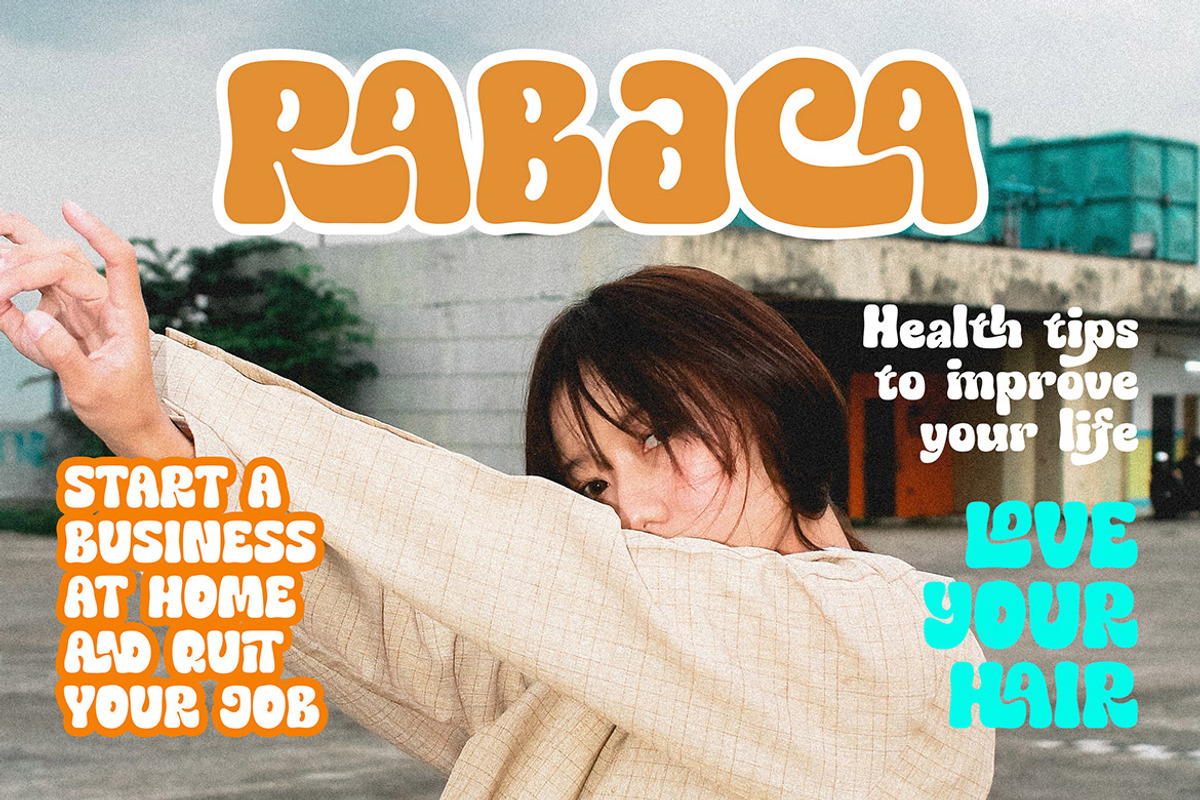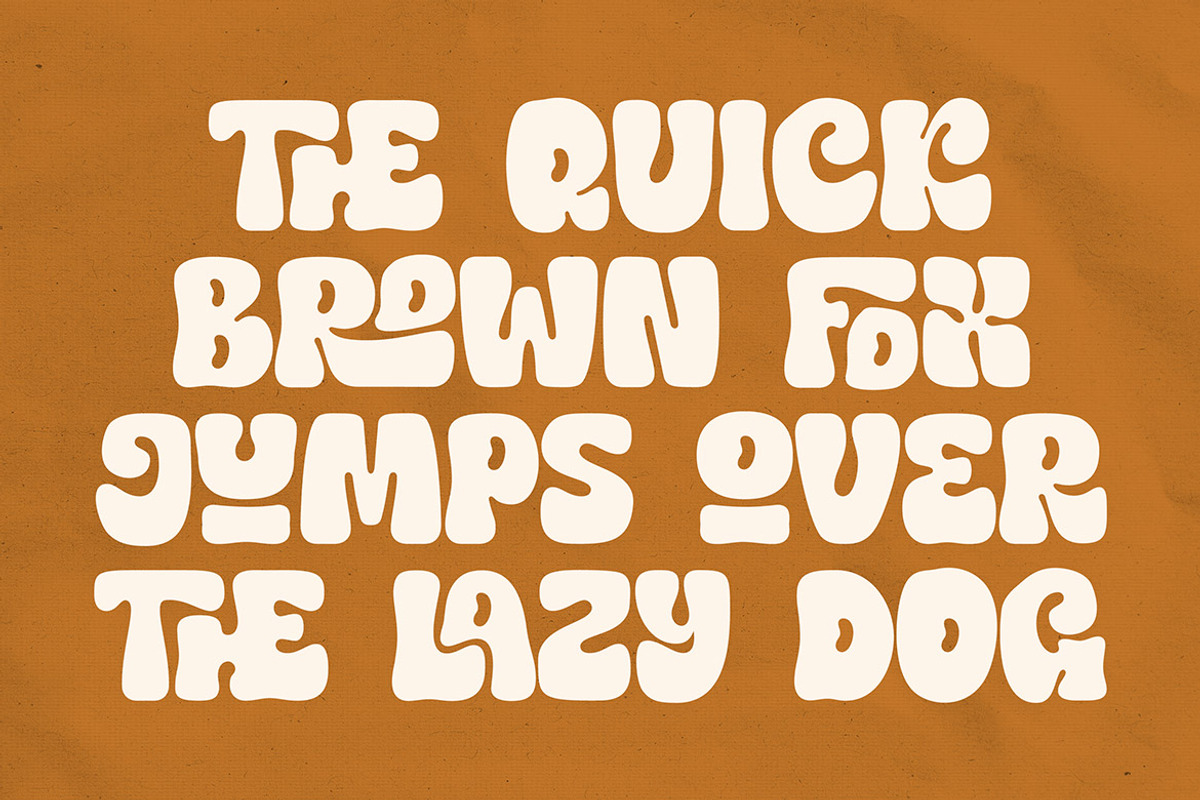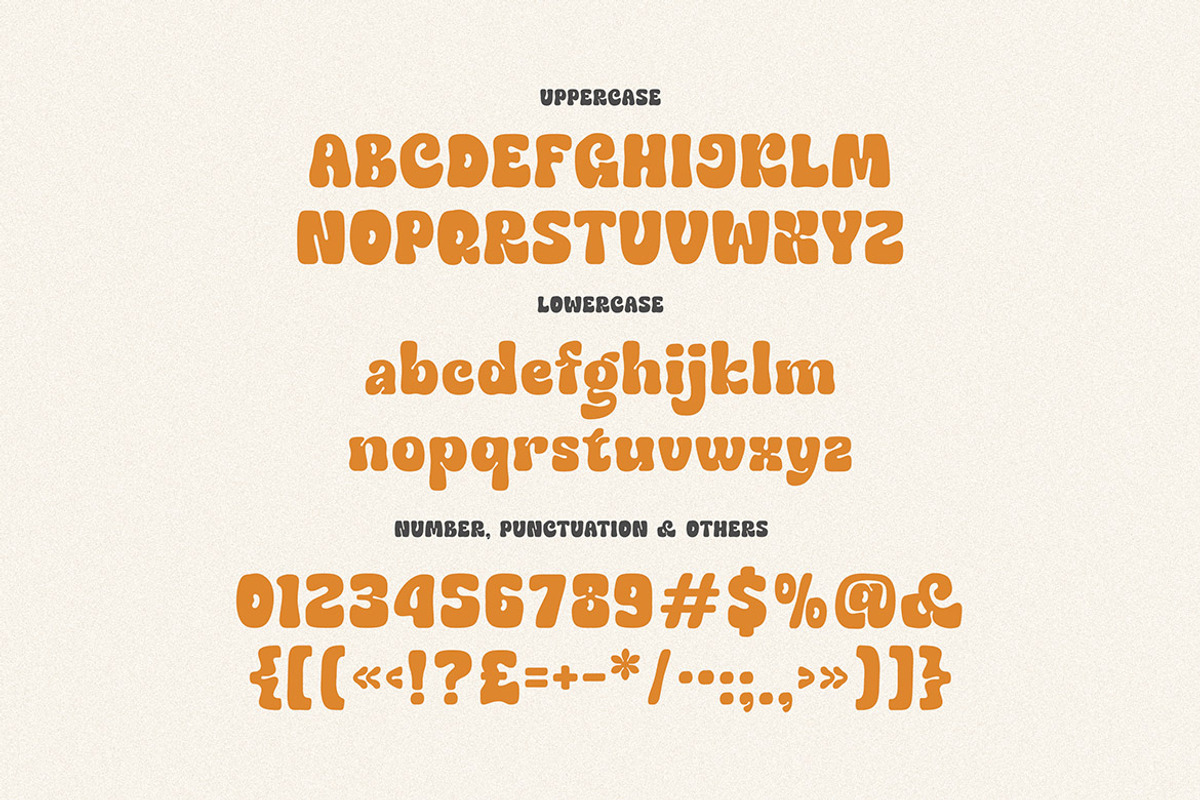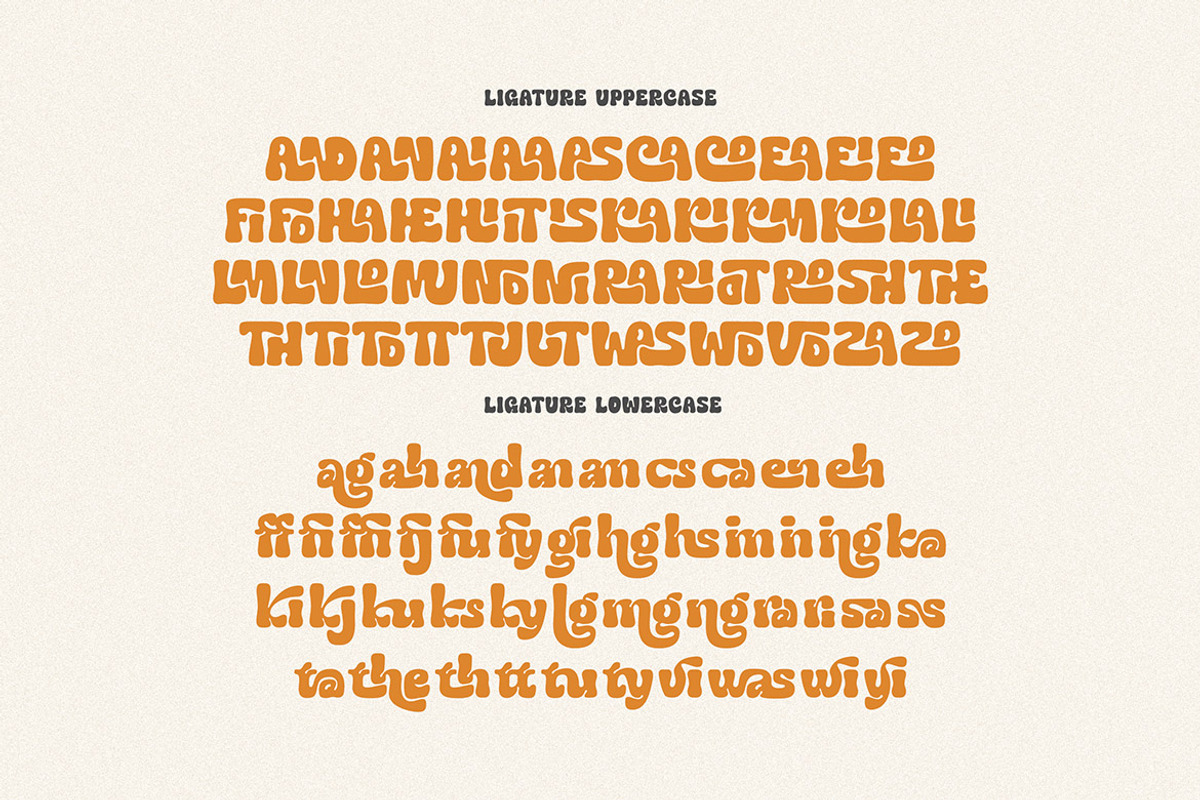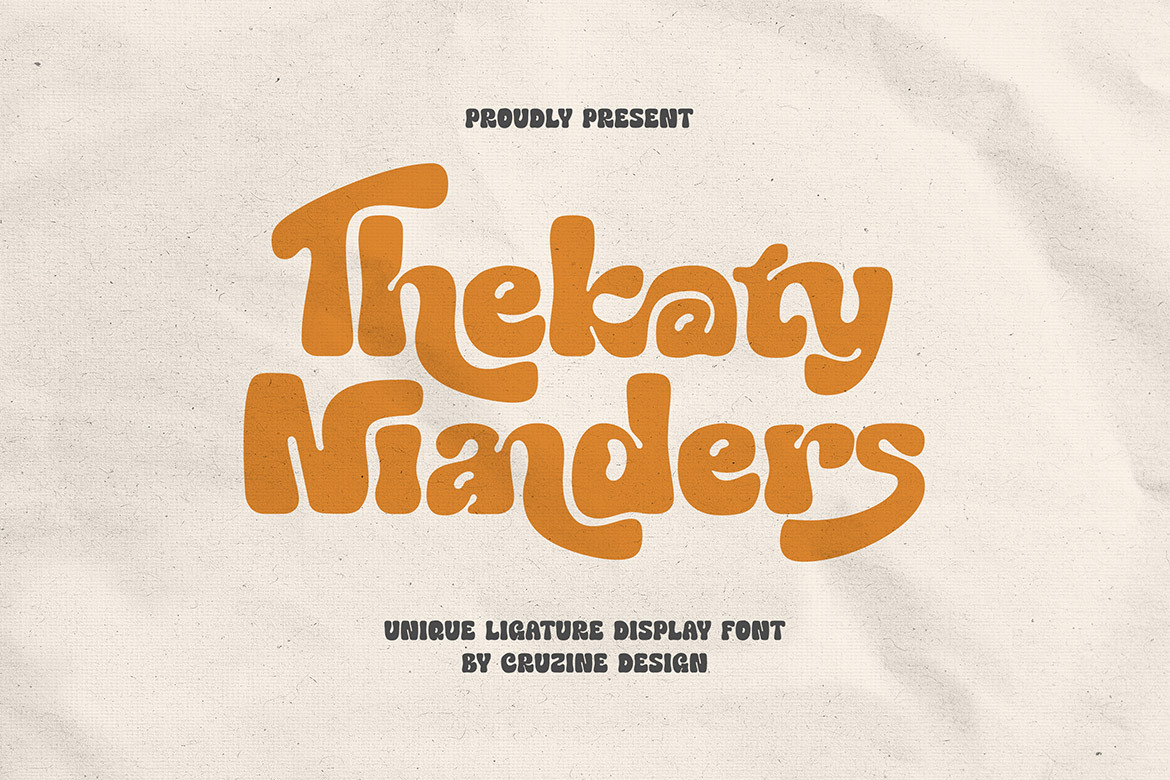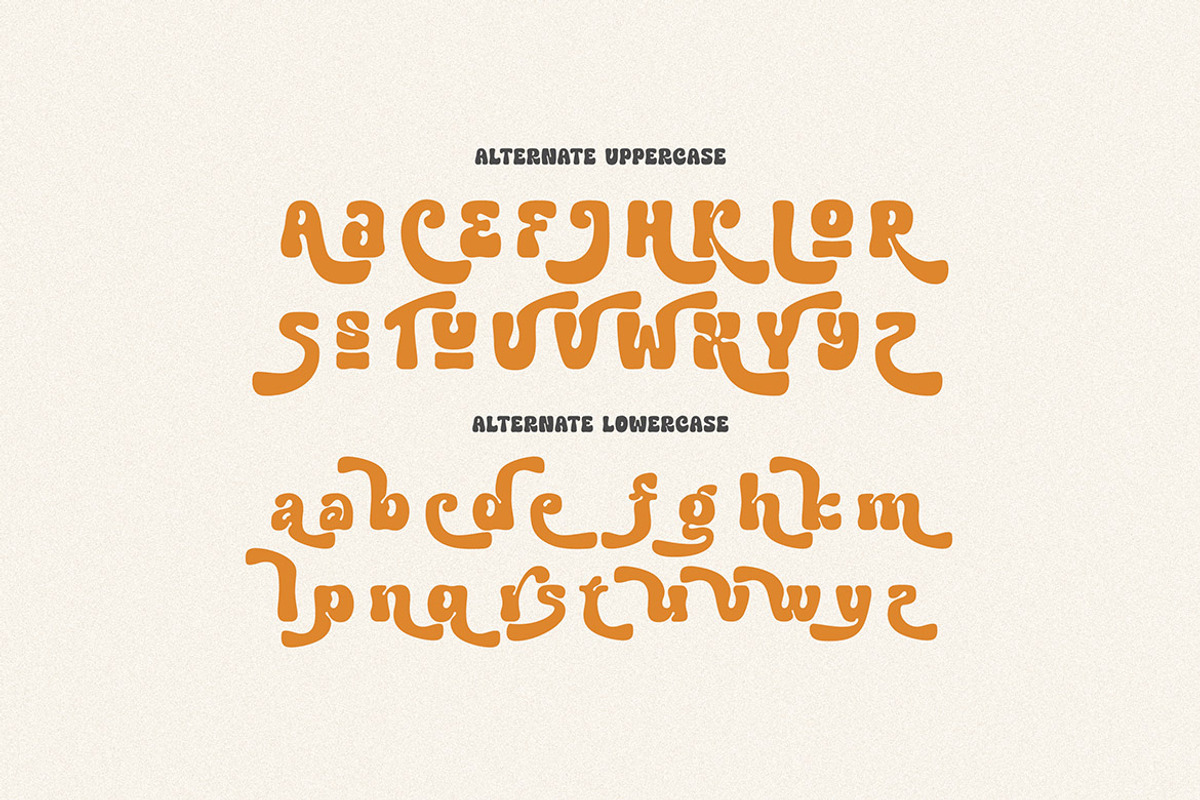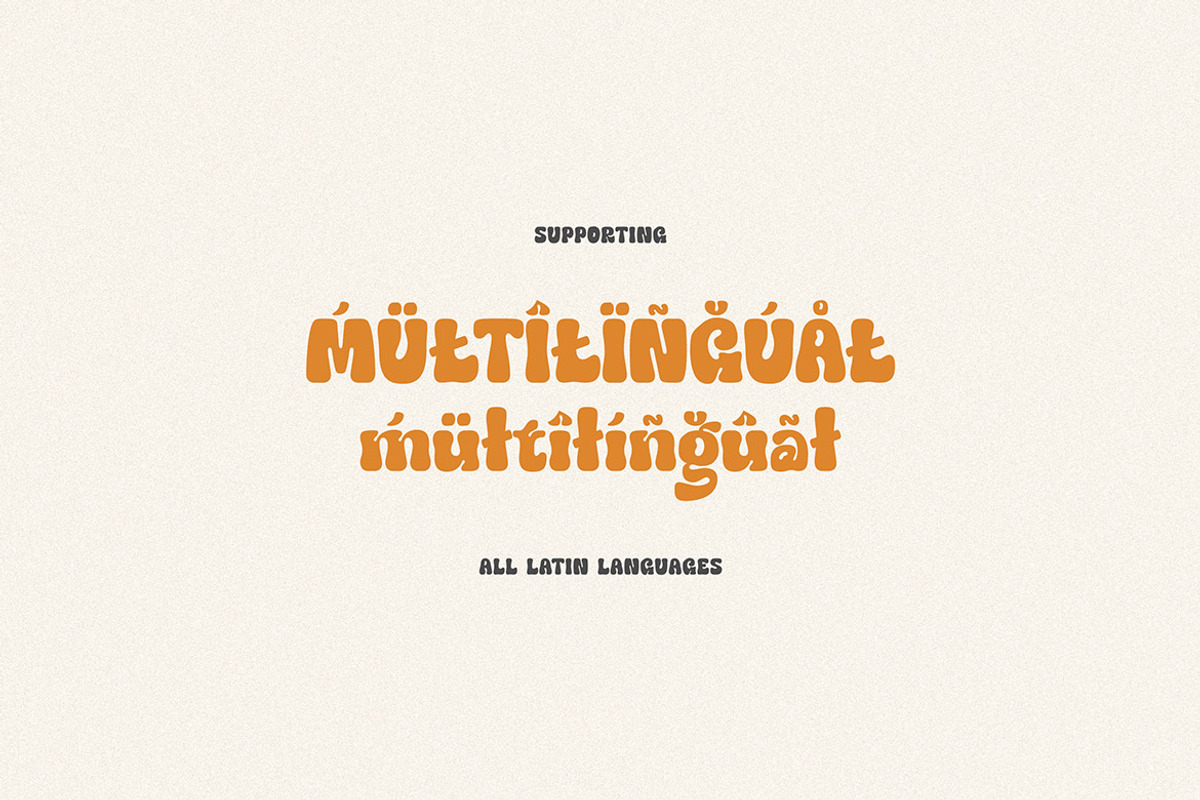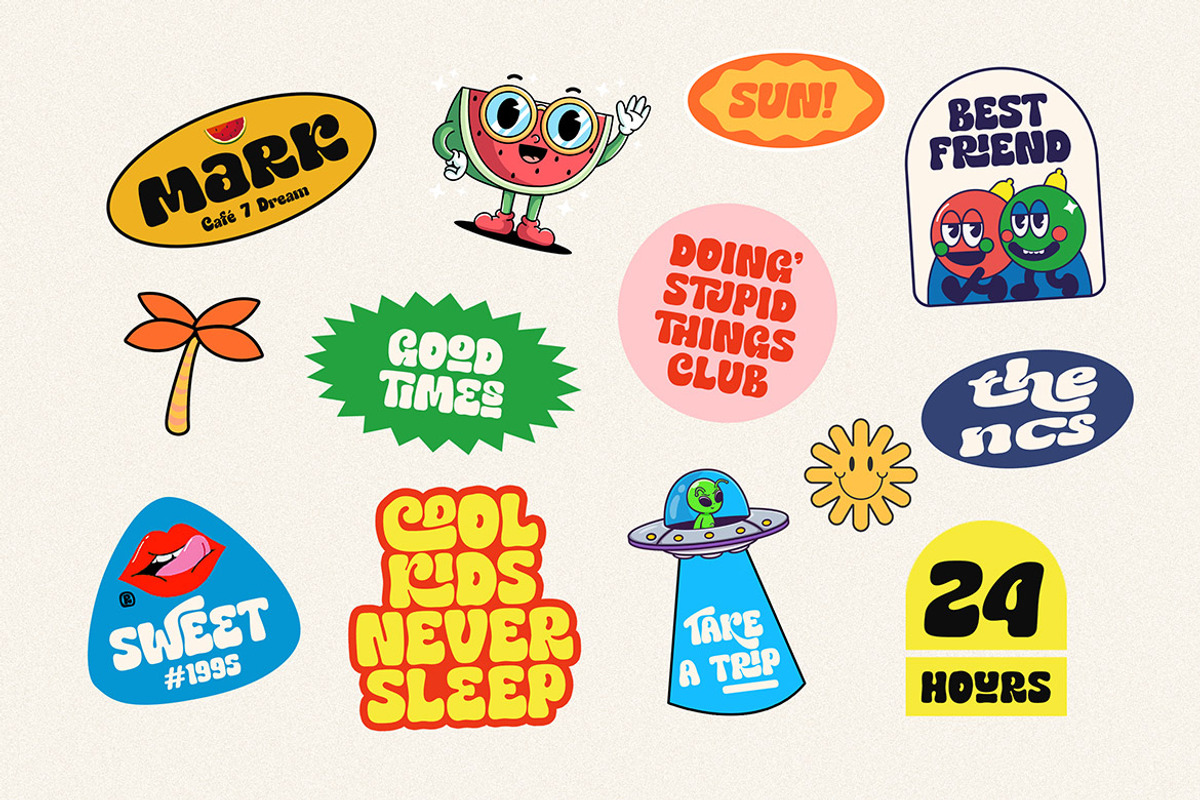
Thekaty Nianders Groovy Display Font
Bubbly, groovy, funny, retro & rounded style display font for your new playful projects. Happy, cute, bold and quirky style on Thekaty Nianders font will be great for any creative branding project. Lot of alternates and ligatures will help you to create unique and original logo design or website header! Enjoy :)
- Alternate characters
- Lot of ligatures
- Great for modern branding projects!!